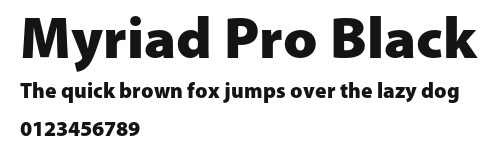
• Font Name: Myriad Pro Black
• Designer: Robert Slimbach and Carol Twombly
About Myriad Pro Black.ttf
Myriad Pro Black.ttf is a modern, elegant sans-serif font designed for ultimate readability and visual harmony. Perfect for branding, headlines, web design, and print materials.